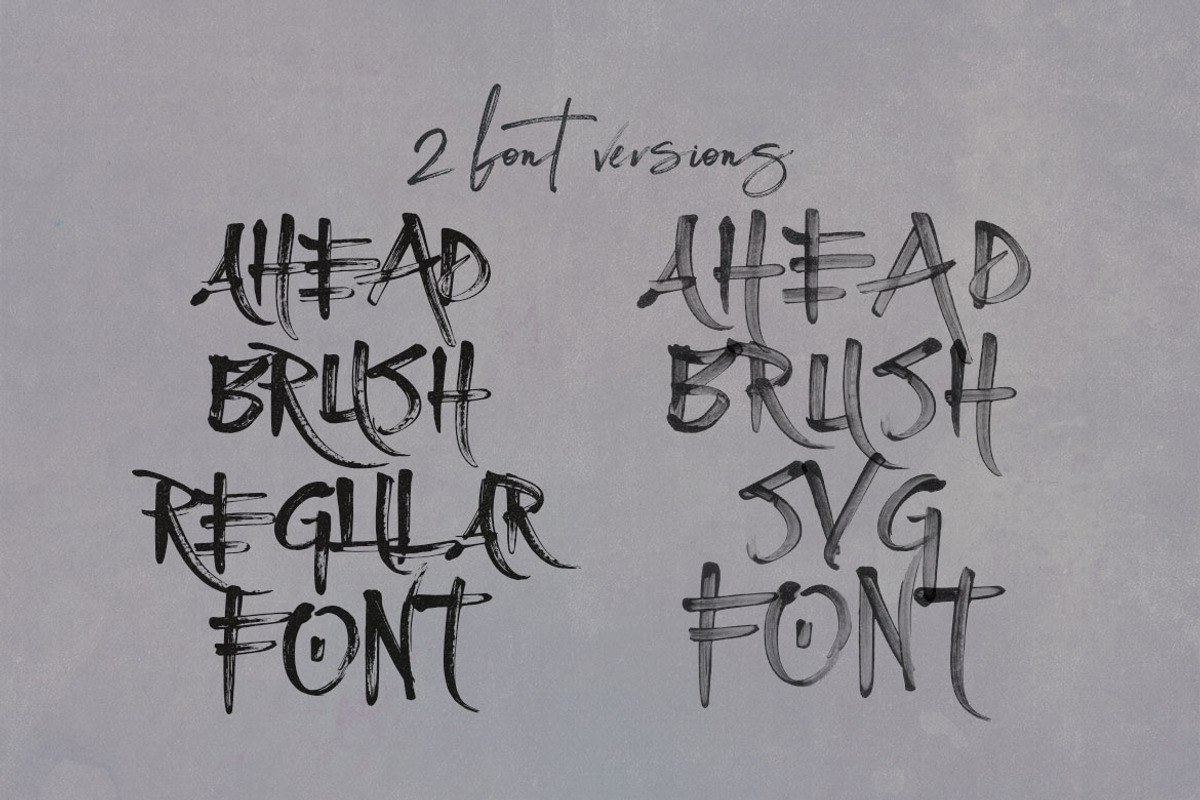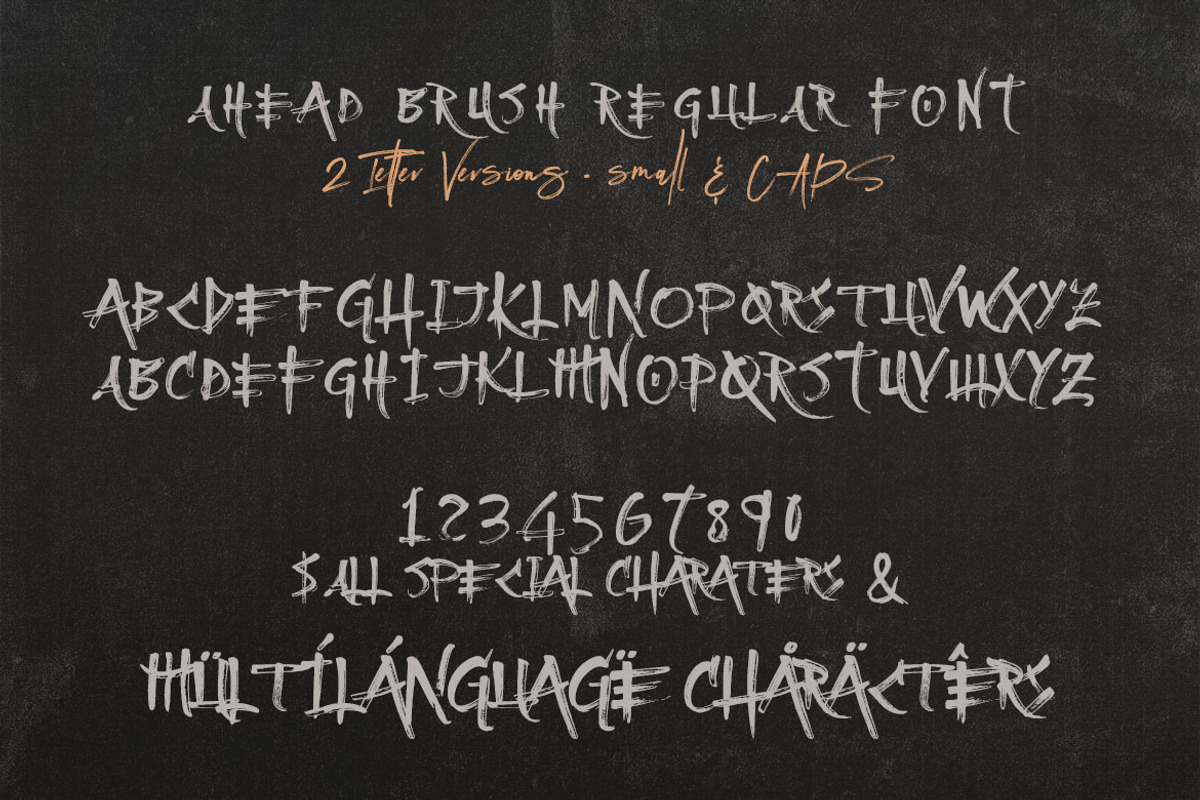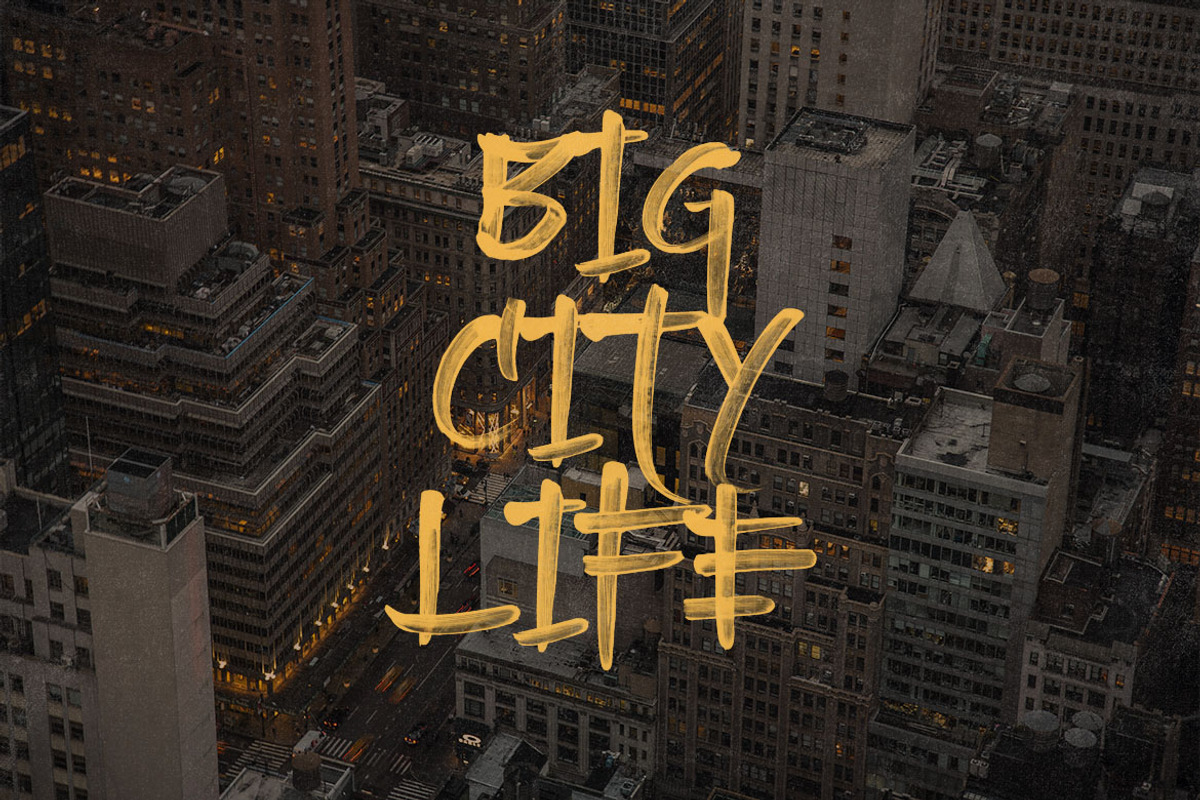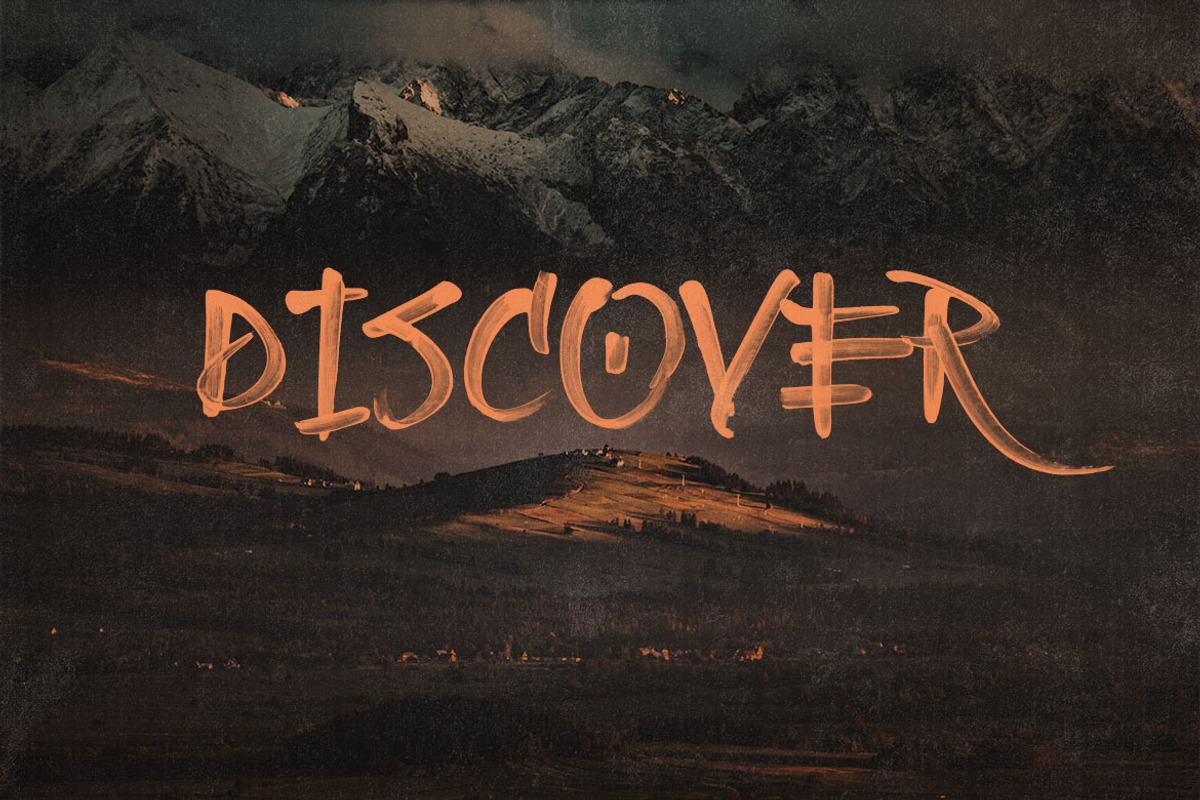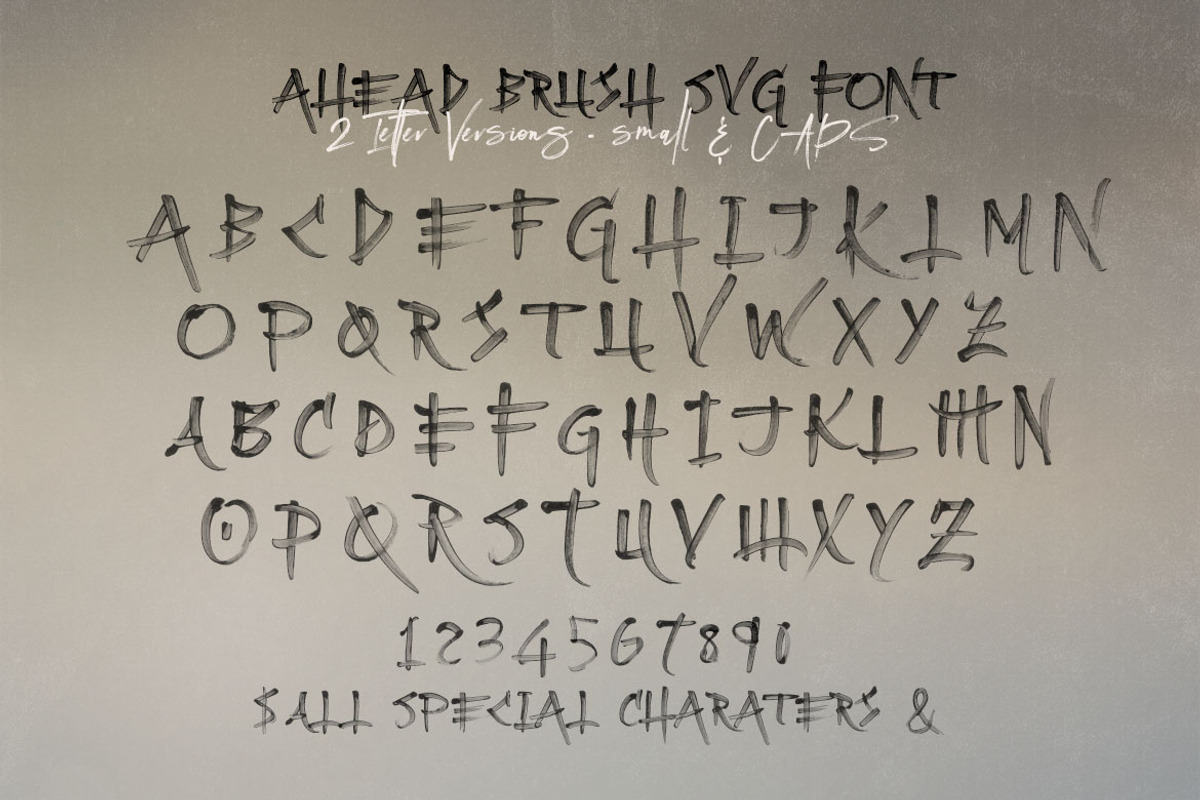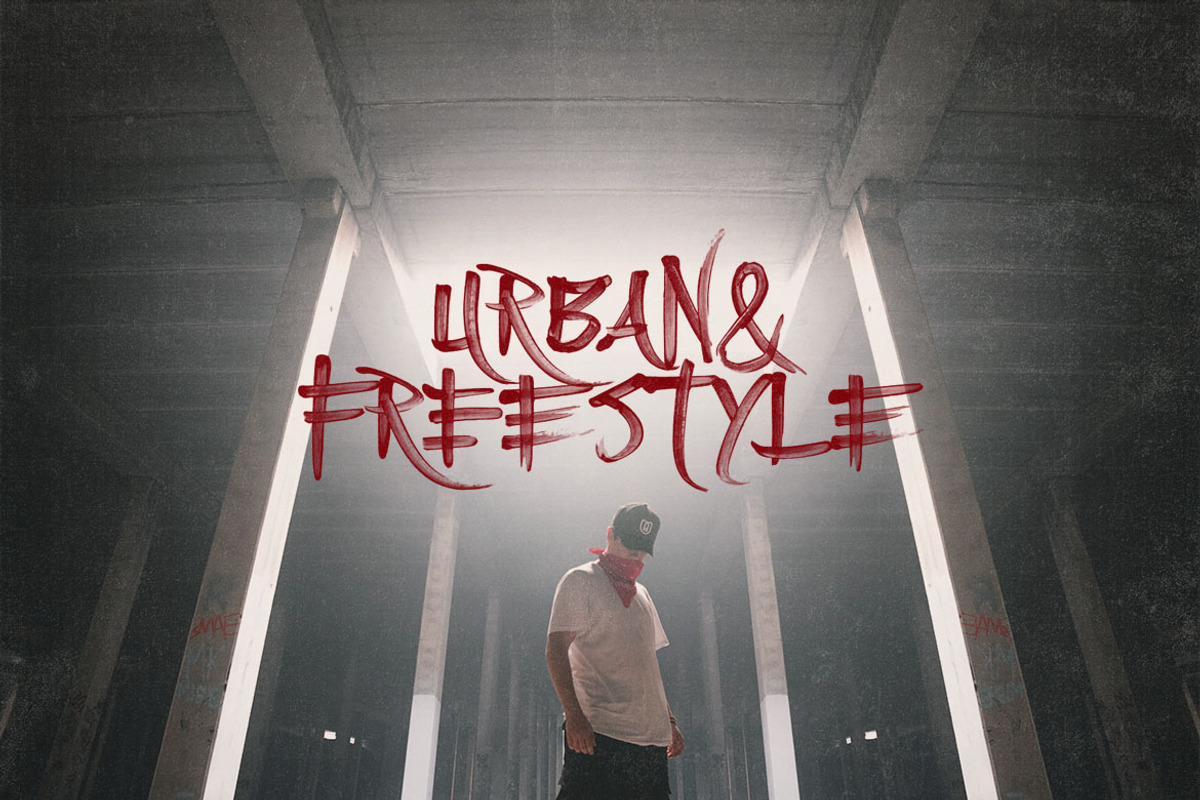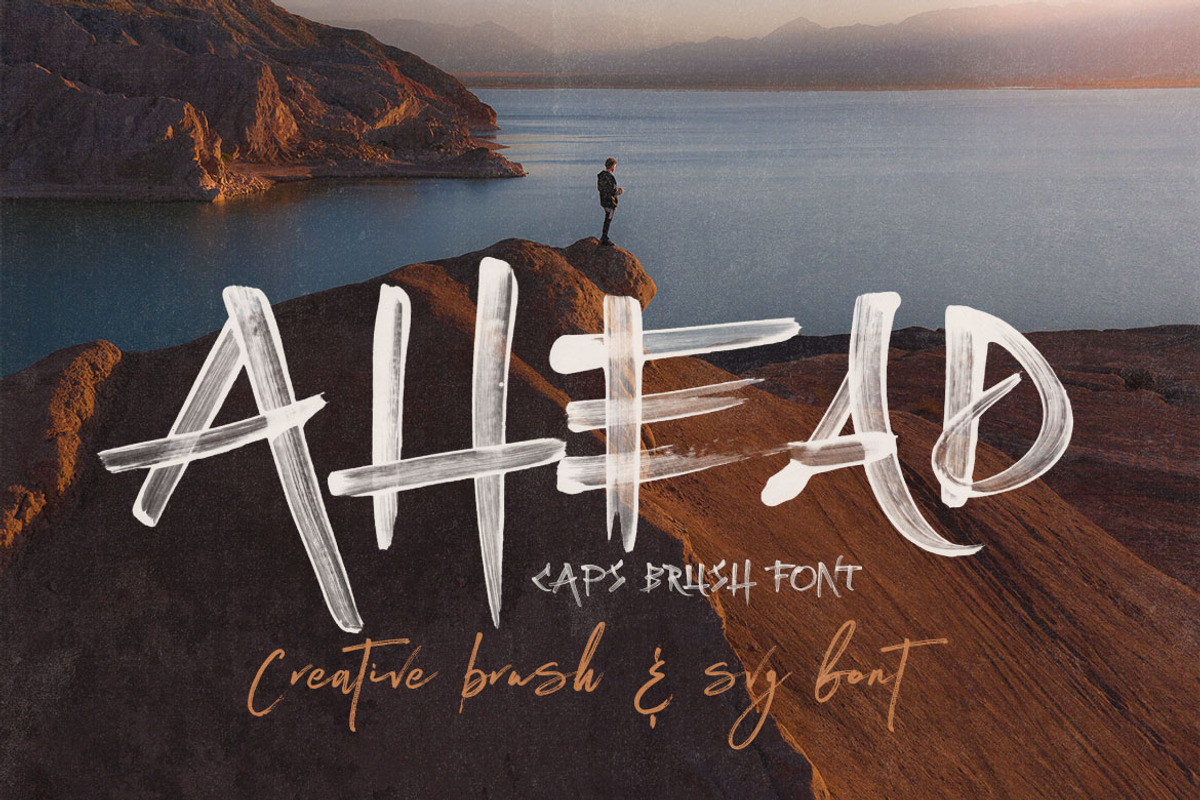
Ahead Brush SVG Font
Brush, paint or grunge style sans display font for your new projects. With graffiti, urban or freestyle style! Great for grunge or artistic projects!